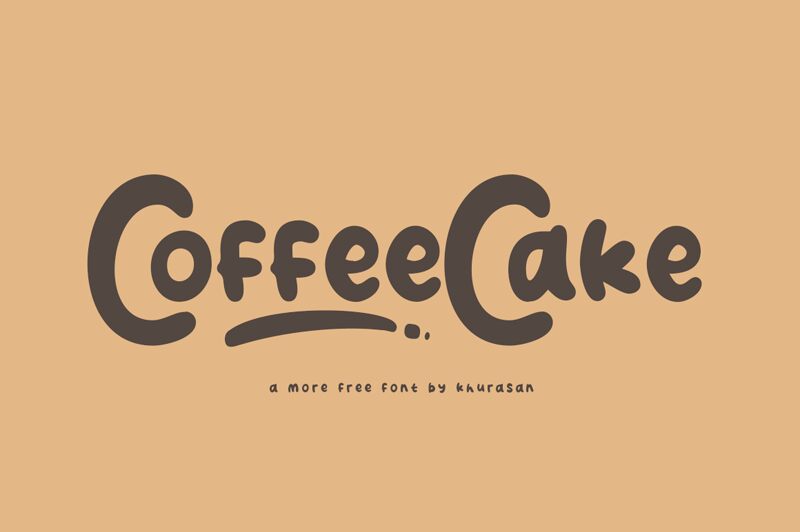
CoffeCake
CoffeCake, the latest addition to Khurasan's display fonts, is a playful and bold typeface that will add a touch of whimsy to any project. With its cartoon-inspired style, CoffeCake is perfect for creating eye-catching designs for children's books, comics, posters or even food packaging. Its bold weight makes it ideal for headlines and titles that need to stand out. Whether you're designing a fun birthday invitation or a colorful logo for your coffee shop, CoffeCake is the perfect font to bring your ideas to life. Try it today and let your creativity run wild!